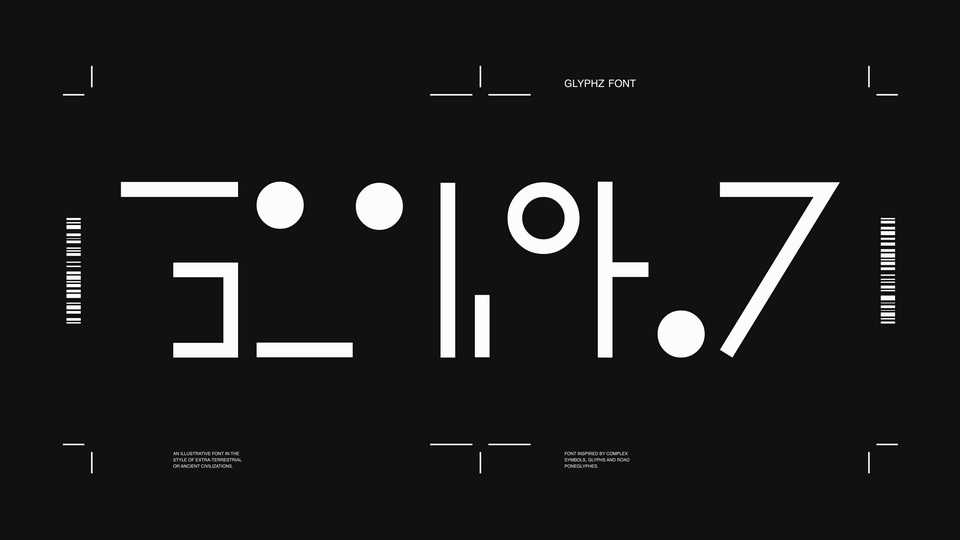
Download Glyphz font, an experimental display typeface inspired by science fiction and space. With its unique personality Glyphz font is best for posters, graphic artworks and typography compositions.